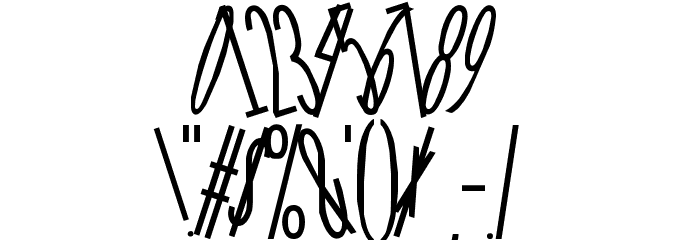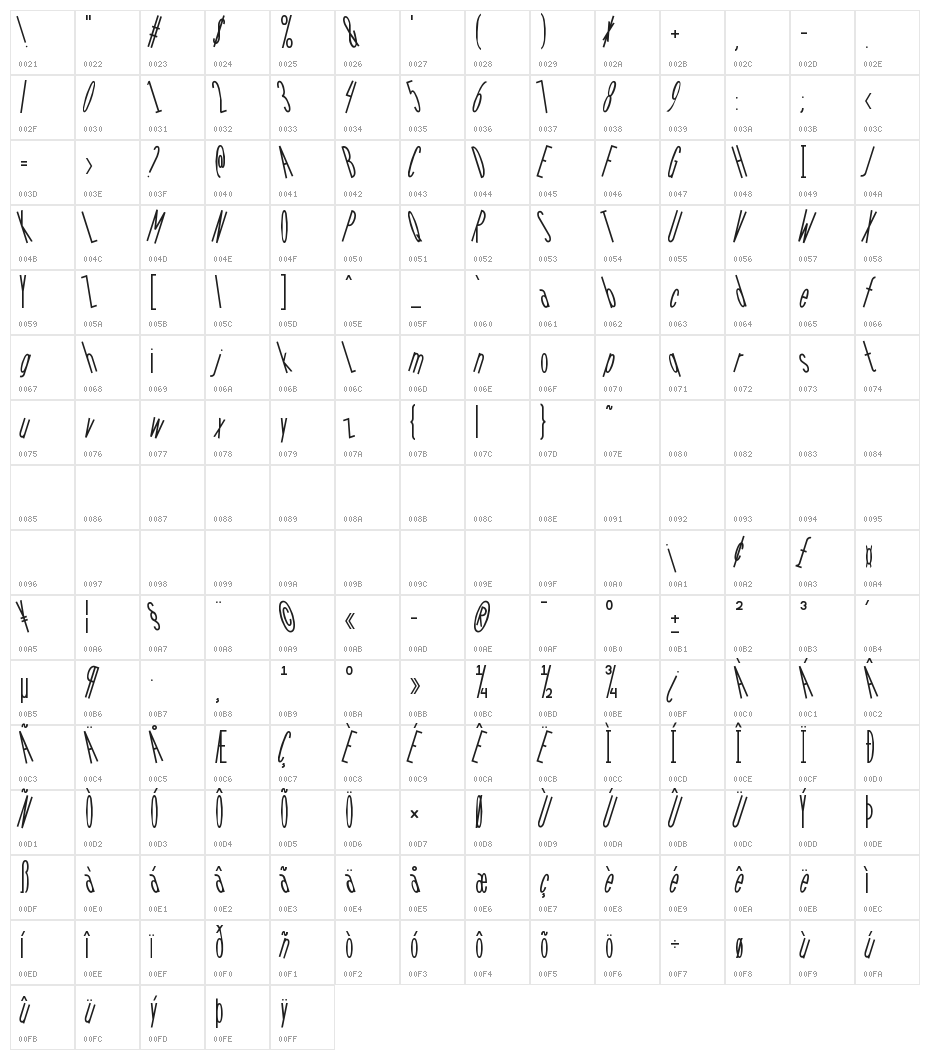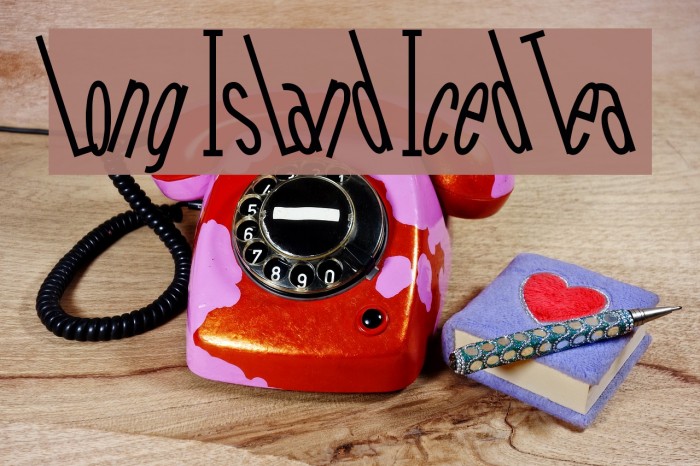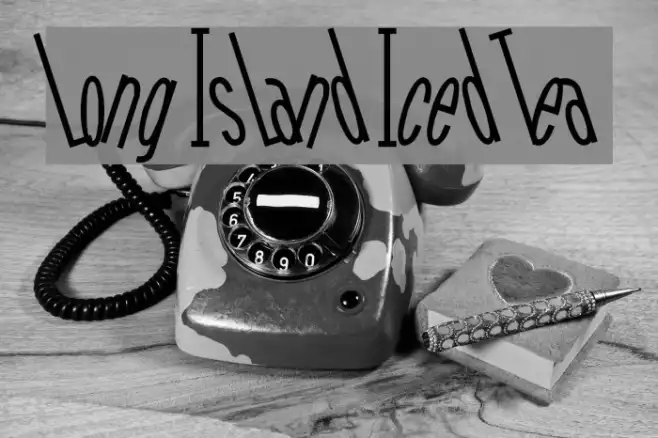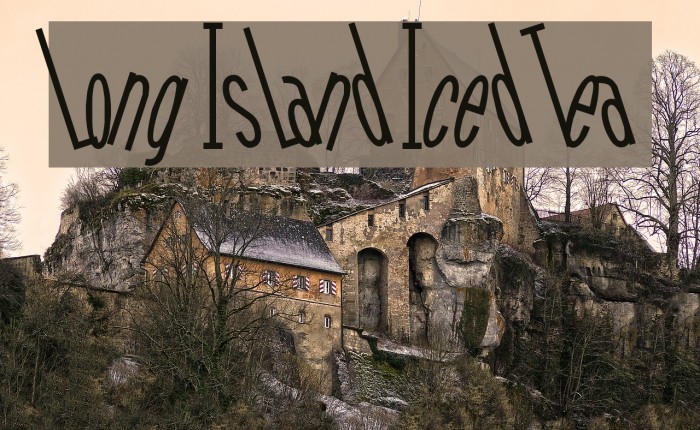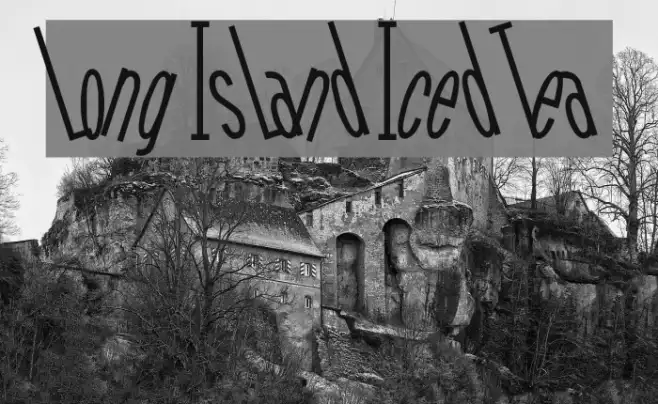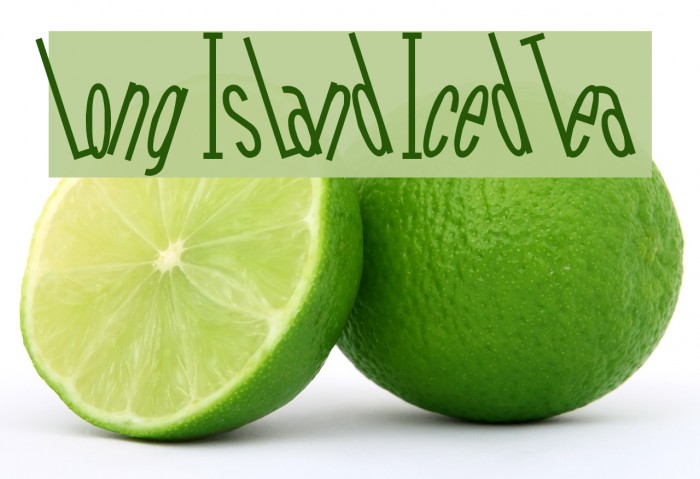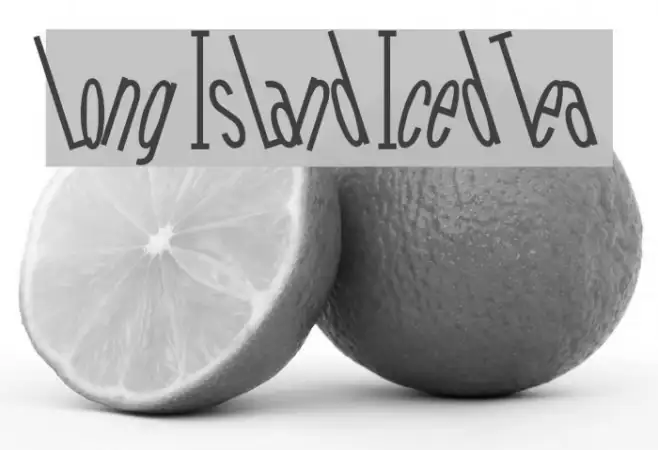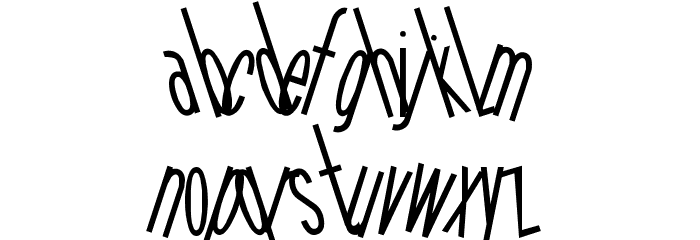
Long Island Iced Tea Font
Long Island Iced Tea Description
This font features a unique and edgy design with elongated, angular characters that give it a dynamic and energetic appearance. The uppercase letters are particularly striking, with sharp angles and a tall, narrow form that creates a sense of movement. The lowercase letters maintain a similar style, offering a cohesive look across the alphabet. Numbers and special characters follow the same design principles, ensuring consistency throughout. The overall style is modern and unconventional, making it stand out in any design project.
| Proposed Projects | Ideal for edgy branding, music album covers, posters, and modern art projects. |